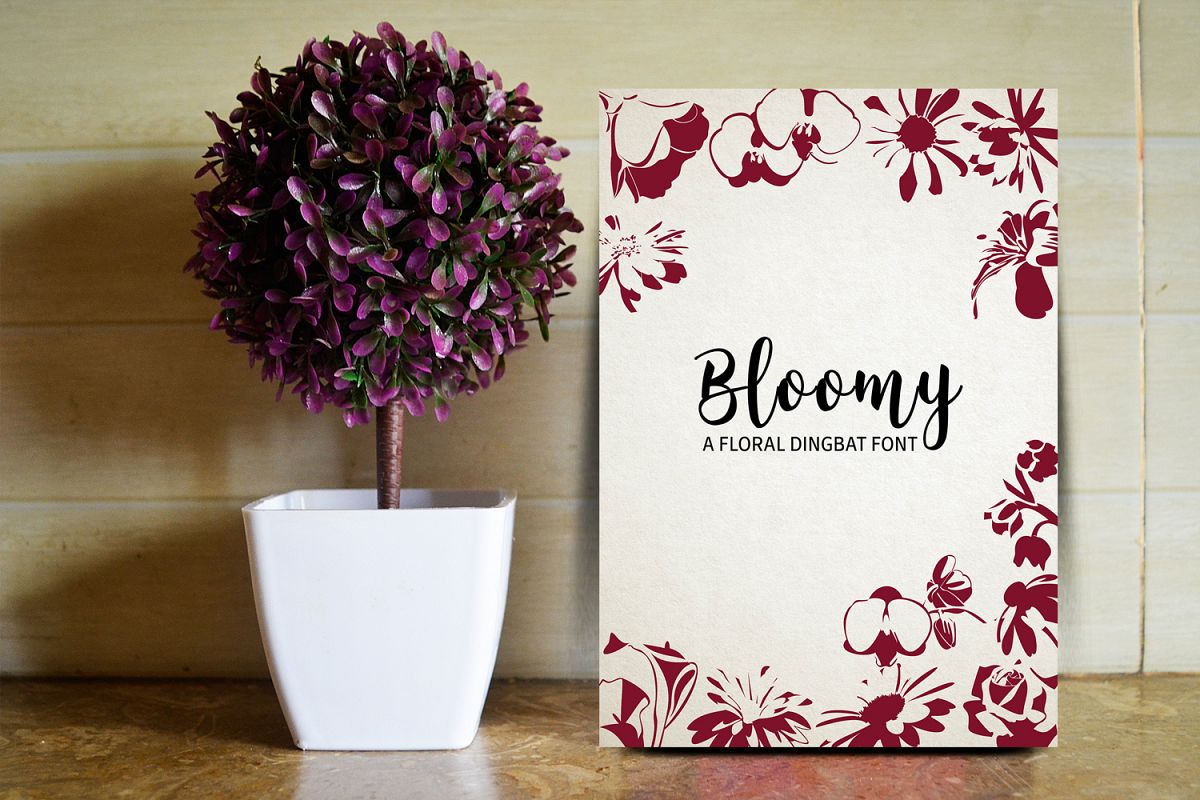
Bloomy
Bloomy is a picture font consisting of 52 high quality flower shapes with clean outlines and a minimum of vector points. Every single floral element is completely re-sizable and editable.This unique set of natural forms may be well used in graphical design projects like brochures, advertisements, posters, etc.